A staggering number of people around the globe use Microsoft Office, representing $143 billion in revenue for Microsoft a year. The vast majority of users never click the font menu to change the style to one of its 700+ options. So that means a significant percentage of the human population spends its days living in Calibri, the default font of Office since 2007.
Today, Microsoft is moving on. The company commissioned five new fonts, from five different typeface designers, to replace Calibri. They are available to use in Office now. And by the end of 2022, Microsoft will select one of them to become the new default option.
Why was Calibri a big deal?
When Calibri debuted 14 years ago, our screens ran at much lower resolutions. This was a time before Retina Displays and 4K Netflix streaming. And that meant it was tricky to make small letters legible on a screen.
Microsoft had long been dealing with this problem, and it developed a system called ClearType to help solve it. ClearType debuted in 1998 and was improved upon over the years, garnering 24 patents as it went.
ClearType was highly specialized software, aimed at making fonts more legible by using software alone (because higher resolution screens didn’t even exist yet). It deployed all sorts of tricks to do so, such as adjusting the separate red, green, and blue elements inside each individual pixel to make letters crisper and applying special anti-aliasing (a trick used to smooth jagged edges in computer graphics). Basically, ClearType allowed fonts to be fudged to appear more legible than they really were.
Calibri was a font that Microsoft commissioned specifically to take full advantage of ClearType, meaning its glyphs were constructed from the ground up to work with the system. Calibri is a sans serif—meaning it’s a modernist font, like Helvetica, without hooks and edges on the ends of letters. Sans serifs are often considered content-agnostic, like a visual Wonder Bread your brain can forget about so as to focus solely on the information in the text. And for Office, with its many different use cases, Wonder Bread is just what Microsoft wanted.
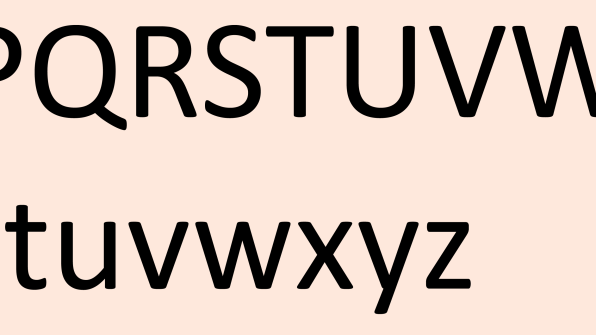
Why ditch Calibri now?
Calibri is a fine font. I say that not as some typographical critic, but as an objective observer: Calibri has done some of the heaviest lifting of any font in human history, and I certainly haven’t heard anyone complaining. When I dread opening Excel, it’s not because of the default font; it’s because it’s tax season.
But Daniels points out a few shortcomings. For one, Microsoft doesn’t use ClearType anymore
“Screen resolutions have increased to the point it’s not necessary,” says Daniels. “So Calibri was designed for a rendering technology which we no longer use, and font technology has moved along since then.”
The other issue is that, in Microsoft’s opinion, Calibri isn’t quite neutral enough for Microsoft’s tastes.
“At small sizes on screen, it looks great,” says Daniels. “Once you make it larger, [you see] the ends of character fonts are rounded, which is quirky.”
In any case, Daniels and his team commissioned five studios to make five new sans serif fonts, each aimed at replacing Calibri: Tenorite (by Erin McLaughlin and Wei Huang), Bierstadt (by Steve Matteson), Skeena (by John Hudson and Paul Hanslow), Seaford (by Tobias Frere-Jones, Nina Stössinger, and Fred Shallcrass), and Grandview (by Aaron Bell).
At first glance, I’ll be honest: These fonts will look largely the same to most of the population. They’re all sleek sans serifs, much like Calibri.
“A lot of customers, they really don’t even think about fonts or look at fonts. It’s only when they zoom in, that they see a g is different!” says Daniels. “It’s really [about], once you use them, what feels natural? Are there quirky characters that get in the way? Do the numerals feel right, and readable? I think we’re stretching what’s acceptable to the limits. But they do feel similar.”
The contenders
If you do study the fonts more closely, you’ll see differences. Tenorite, Bierstadt and Grandview, in particular, home in on traditional modernism. That means the letters share relatively restrictive geometries, designed with the goal of being as undifferentiated as possible. The circles of Os and Qs are identical, as are the loops in Rs and Ps. The goal of these fonts is to be built upon a perfect, replicable design system. And in this regard, they are beautiful.
Skeena and Seaford, on the other hand, work in a bit more character. Skeena plays with line thickness to embrace asymmetry in letters such as X. Seaford quietly rejects the strictest modernism, adding tapering to many glyphs. That means every letter looks a bit different. The quirkiest character is Skeena’s k, which has the upper loop of an R.
As Tobias Frere-Jones explains, his goal wasn’t to make a completely anonymous font. He thinks the challenge is impossible to begin with. “We spend a good time talking about what a default is or could be, and for a long time in a lot of environments, [sans serifs such as] Helvetica or things near it were the default, described with the idea that Helvetica is neutral and colorless,” says Frere-Jones. “We don’t believe there is such a thing.”
“We’ll look at adjusting numerals so they work really well in Excel, and [large] display typography for PowerPoint,” says Daniels. “And then that font will be a fully baked font that will live alongside Calibri for a while, so we’re completely confident, before we flip the default.”
But no matter what Microsoft ultimately picks, the good news is that all of the new fonts will still stick around within Office, right alongside good old Calibri. While Microsoft is choosing a new default, it is not eliminating choice.